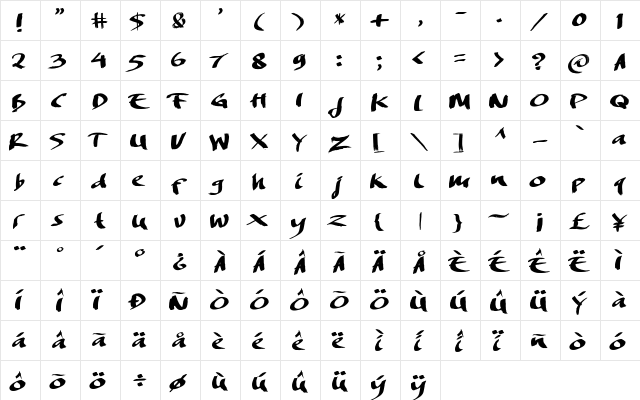
DREAMERS BRUSH Regular
Design Context for DREAMERS BRUSH Typeface
DREAMERS BRUSH brings a calligraphic fluidity to the page — its connecting strokes and expressive curves give it an unmistakably human quality.
Font Pairing: Combine DREAMERS BRUSH with a simple geometric sans for maximum contrast — the tension between flowing curves and clean structure is a classic typographic pairing.
Pro Tip: Use DREAMERS BRUSH for short runs of text — names, titles, or taglines. Extended body copy in script faces tires the eye quickly.